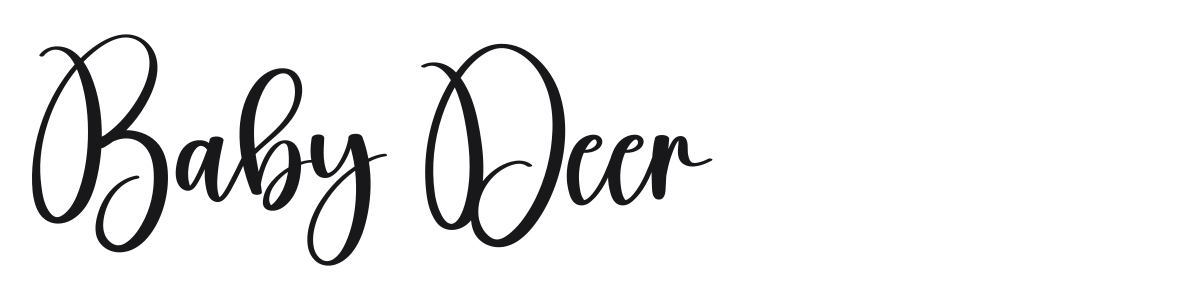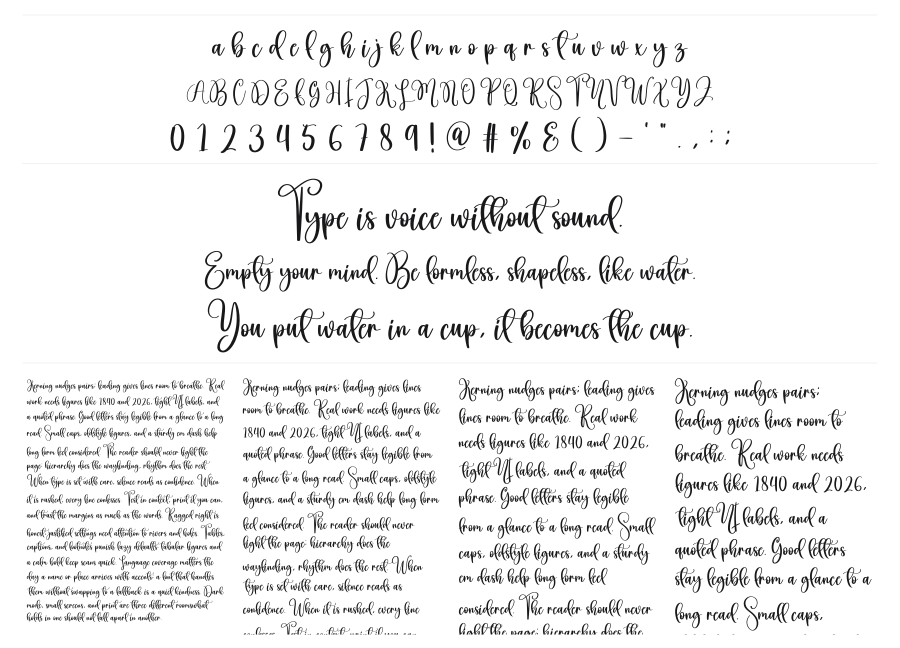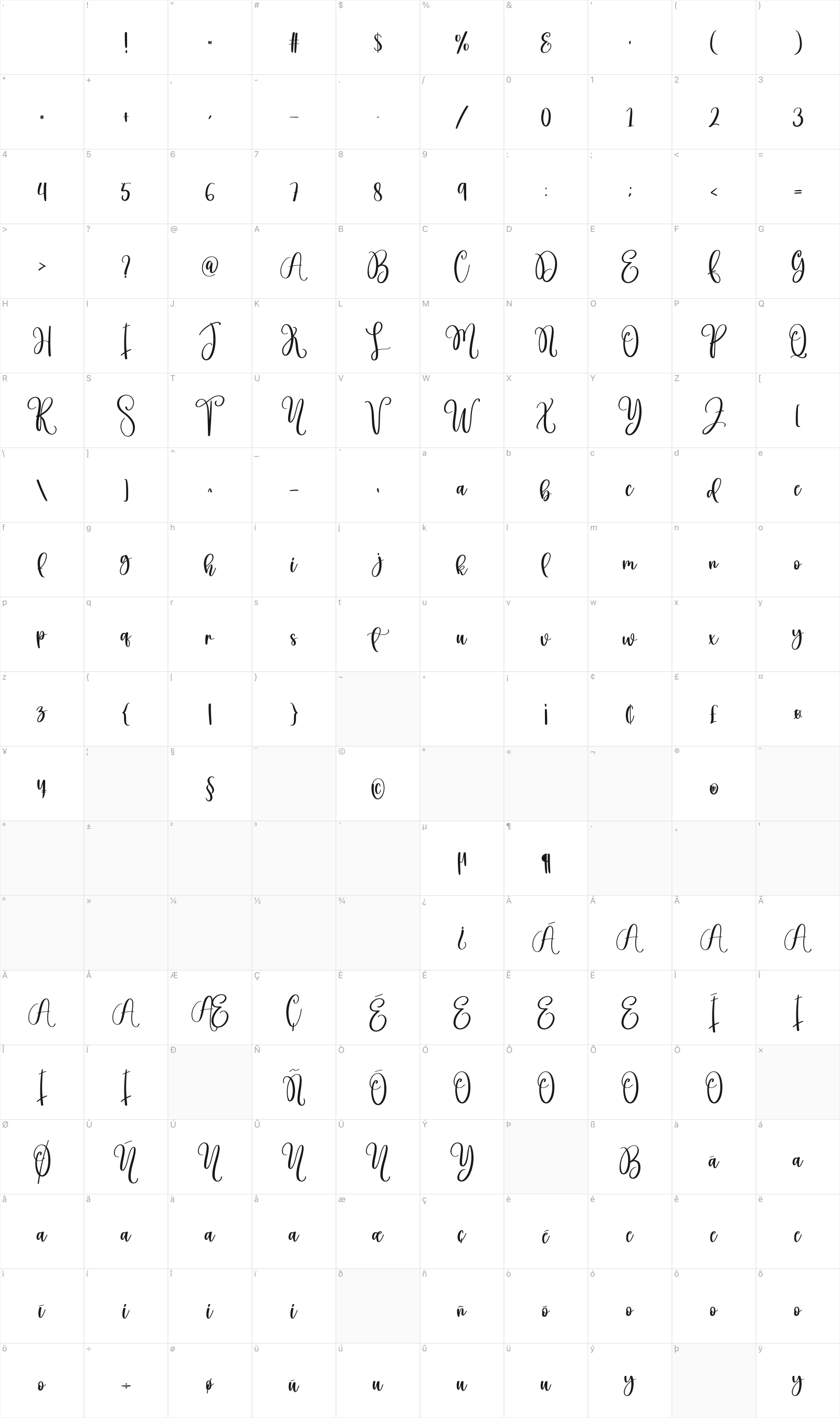
Baby Deer
Baby Deer is a modern casual script with lush stroke contrast and playful bouncing baselines. The swashing connections and looping ascenders give it a warm, handcrafted energy that reads well on invitations, logos, and packaging. It sits comfortably in the current wave of contemporary calligraphy-inspired display faces.